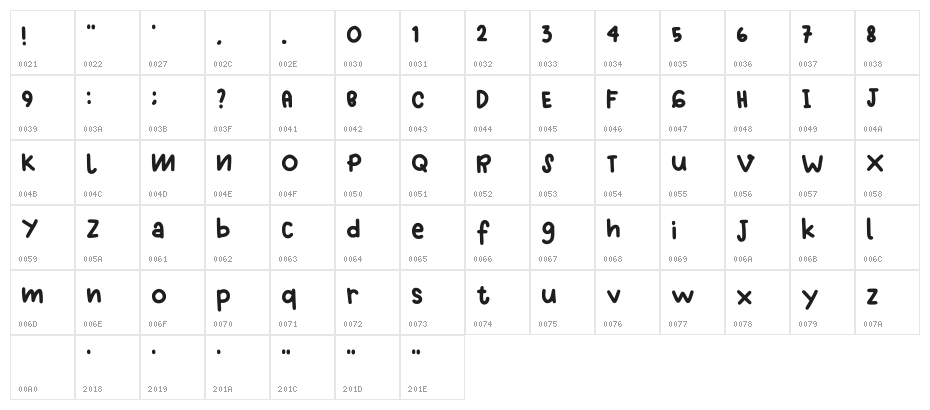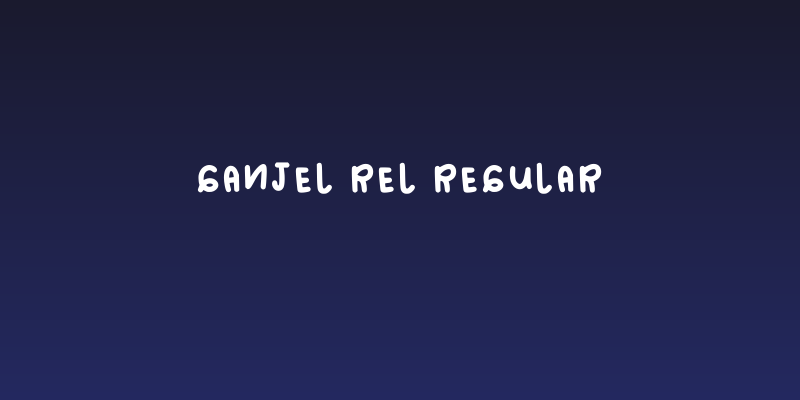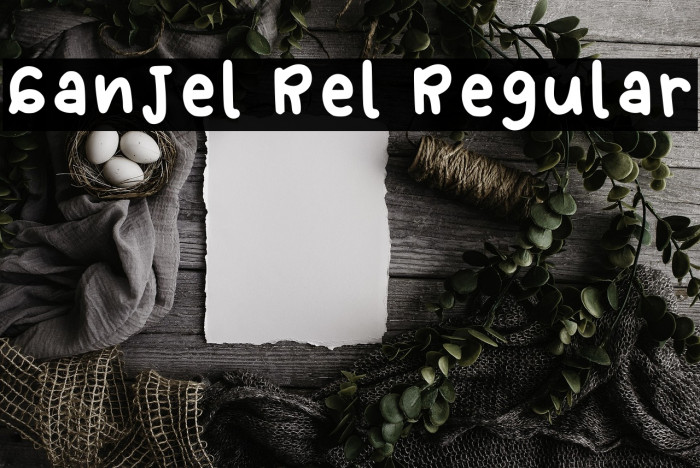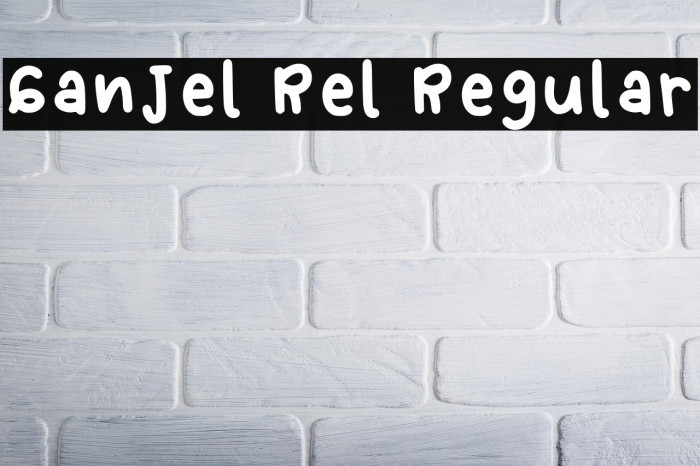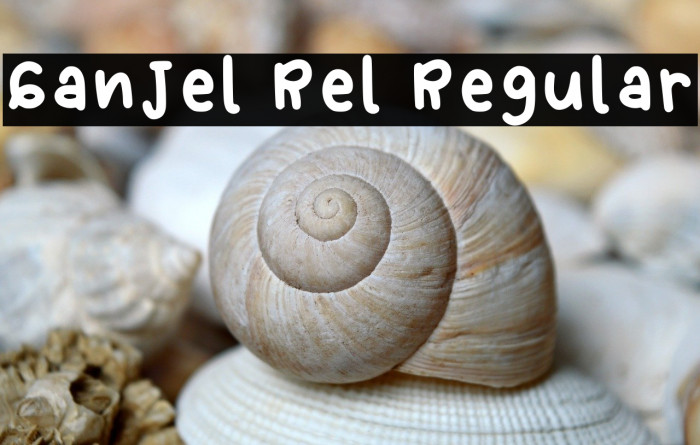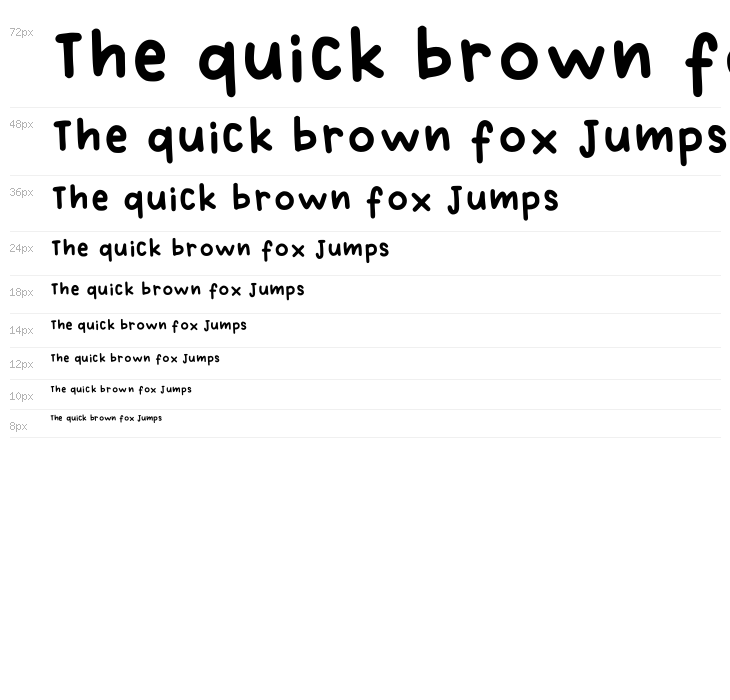
Ganjel Rel Regular Font
Ganjel Rel Regular Description
This playful and quirky font features rounded, slightly irregular characters that give it a hand-drawn appearance. The letters are bold and have a consistent thickness throughout, contributing to a friendly and approachable feel. The font maintains a uniform baseline, but the varying heights and widths of the characters add a dynamic and lively touch. The numbers and special characters follow the same style, ensuring a cohesive look across all text elements. This font is perfect for projects that require a fun and informal vibe.
| Proposed Projects | Ideal for children's books, comic strips, playful branding, and informal invitations. |